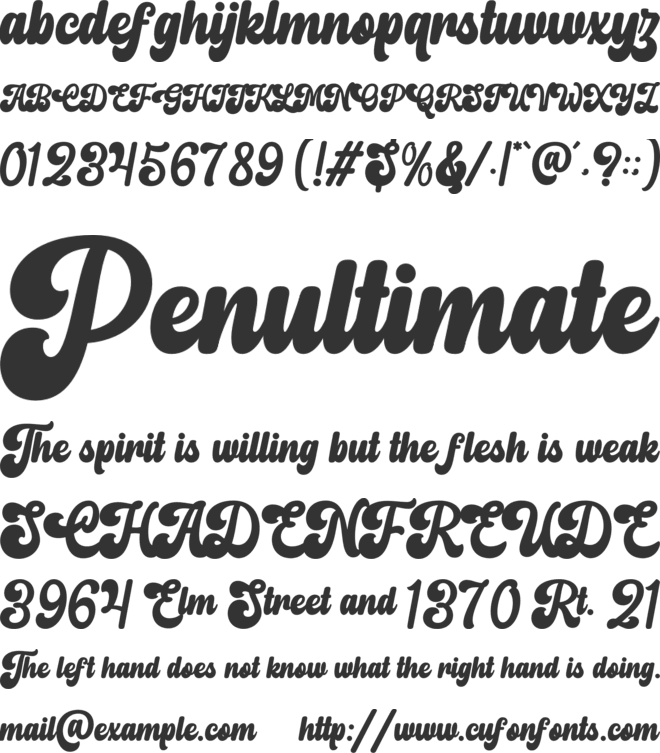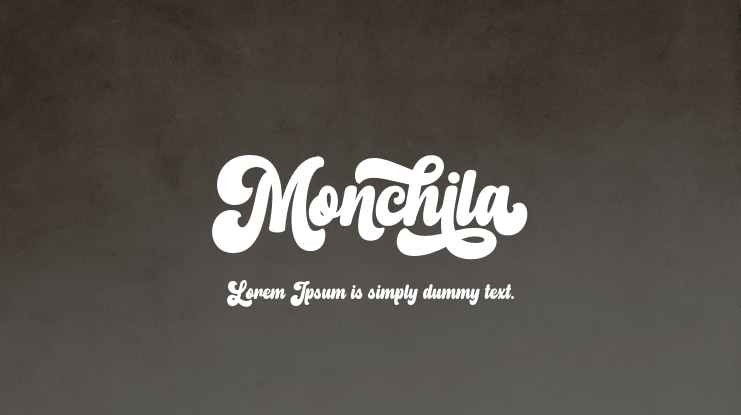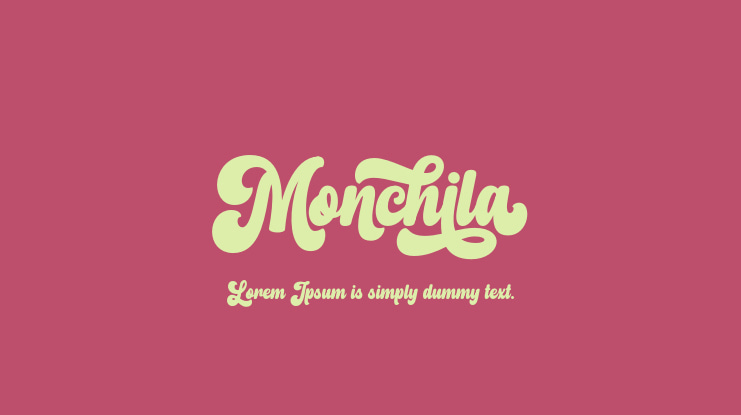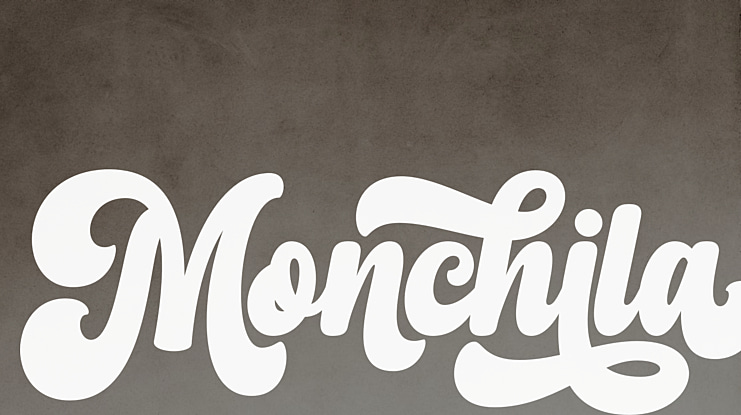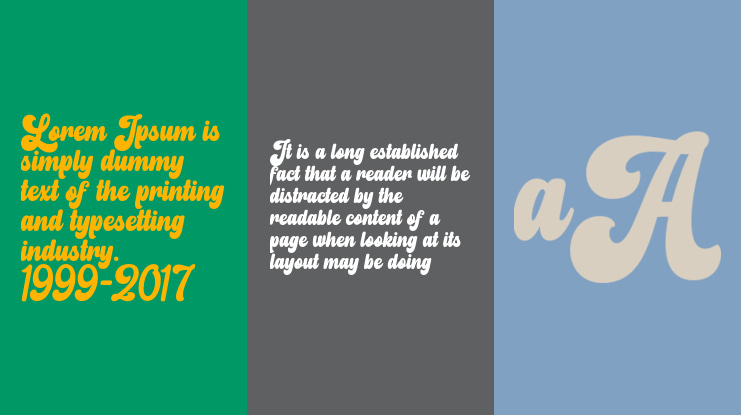
Monchila Font
Monchila is an exciting, throwback script display font that is perfect for elevating your designs. Incorporate it into your retro-themed posters, stickers, clothing, or social media content to truly captivate your audience.
Furthermore, this font is PUA encoded, allowing for effortless access to all the unique glyphs and swashes!
Monchila font preview